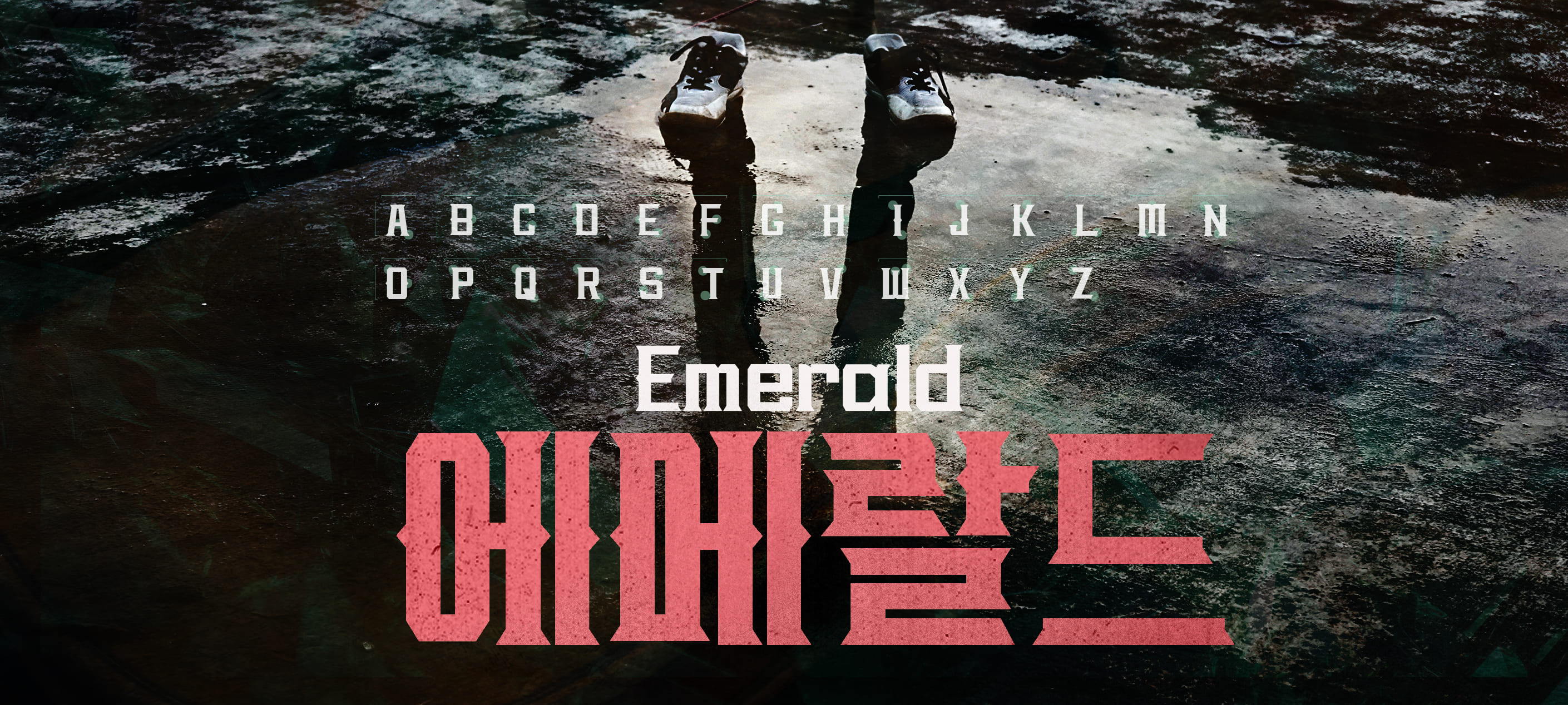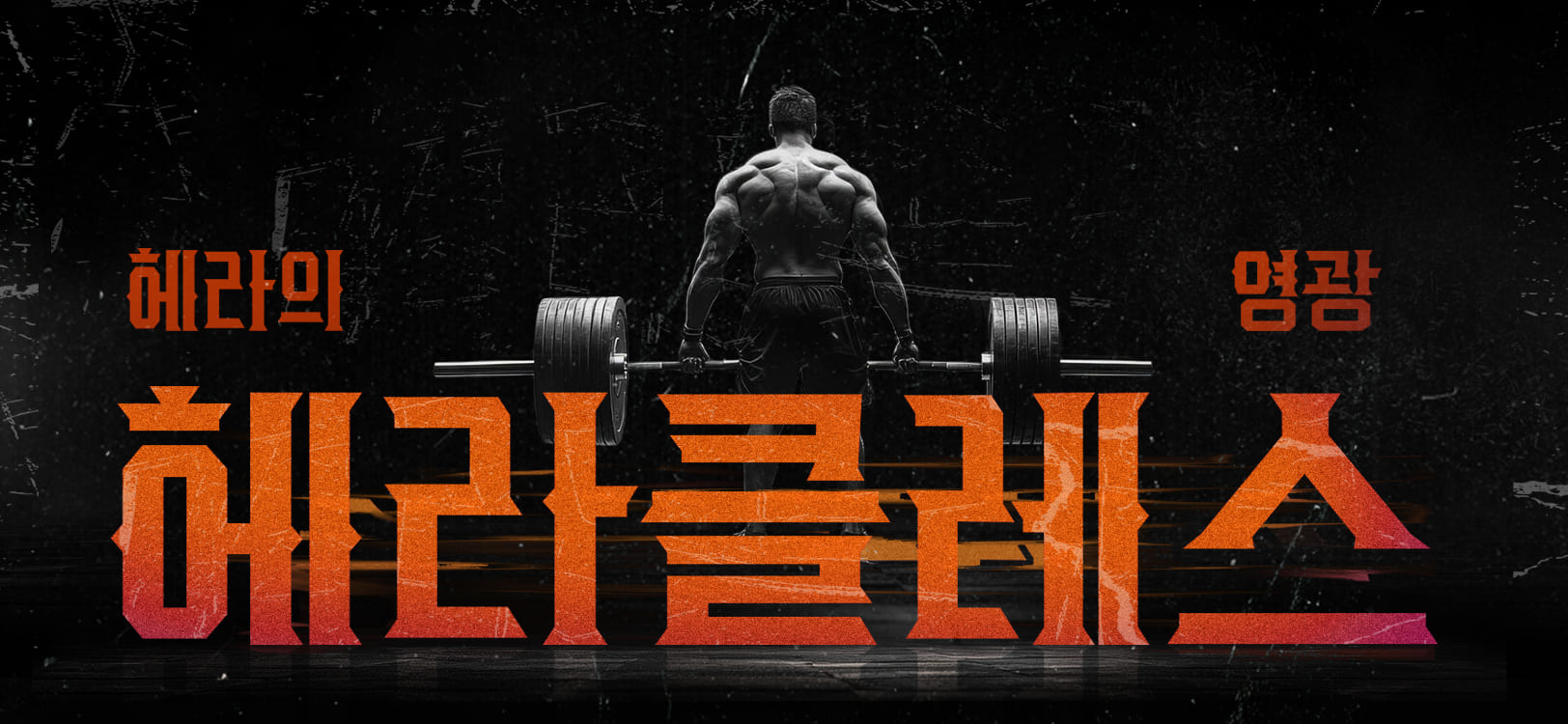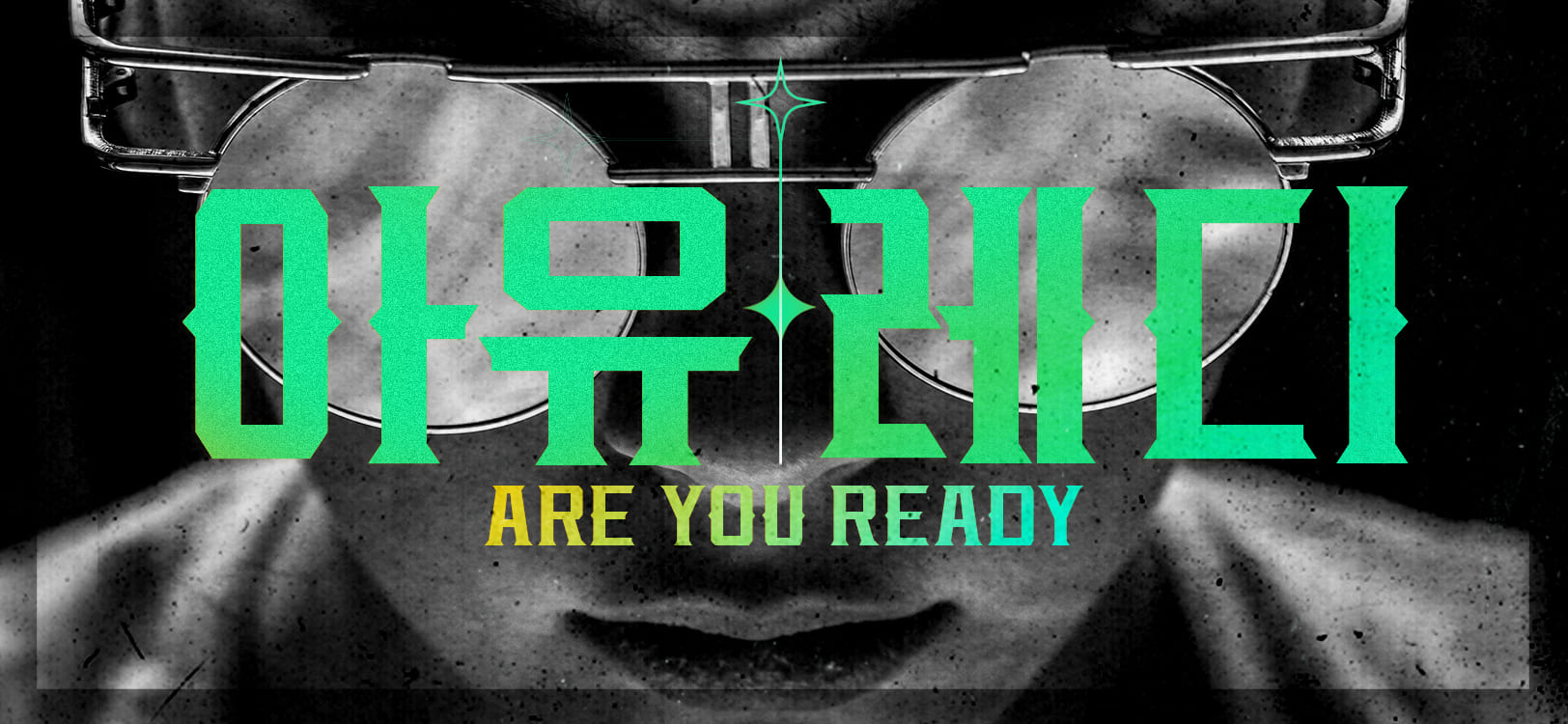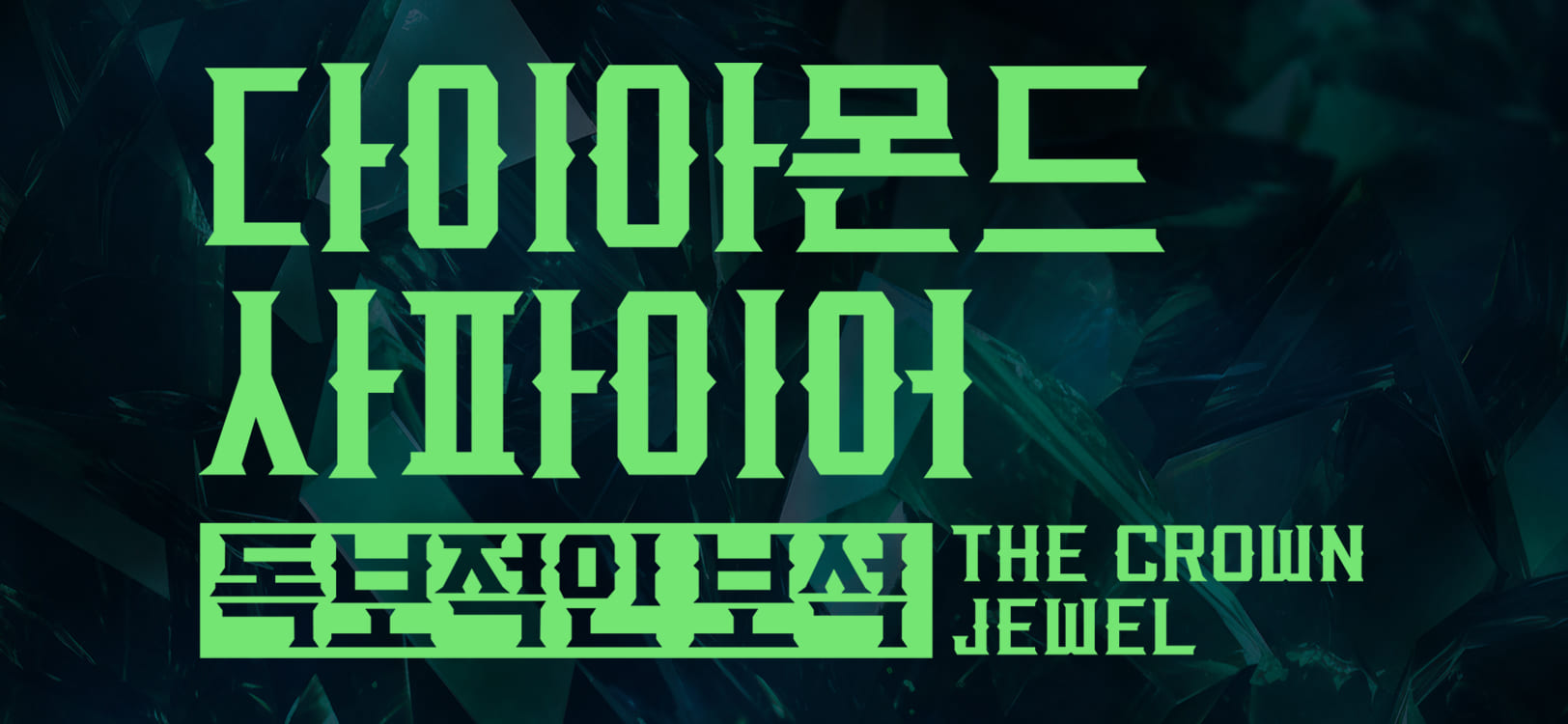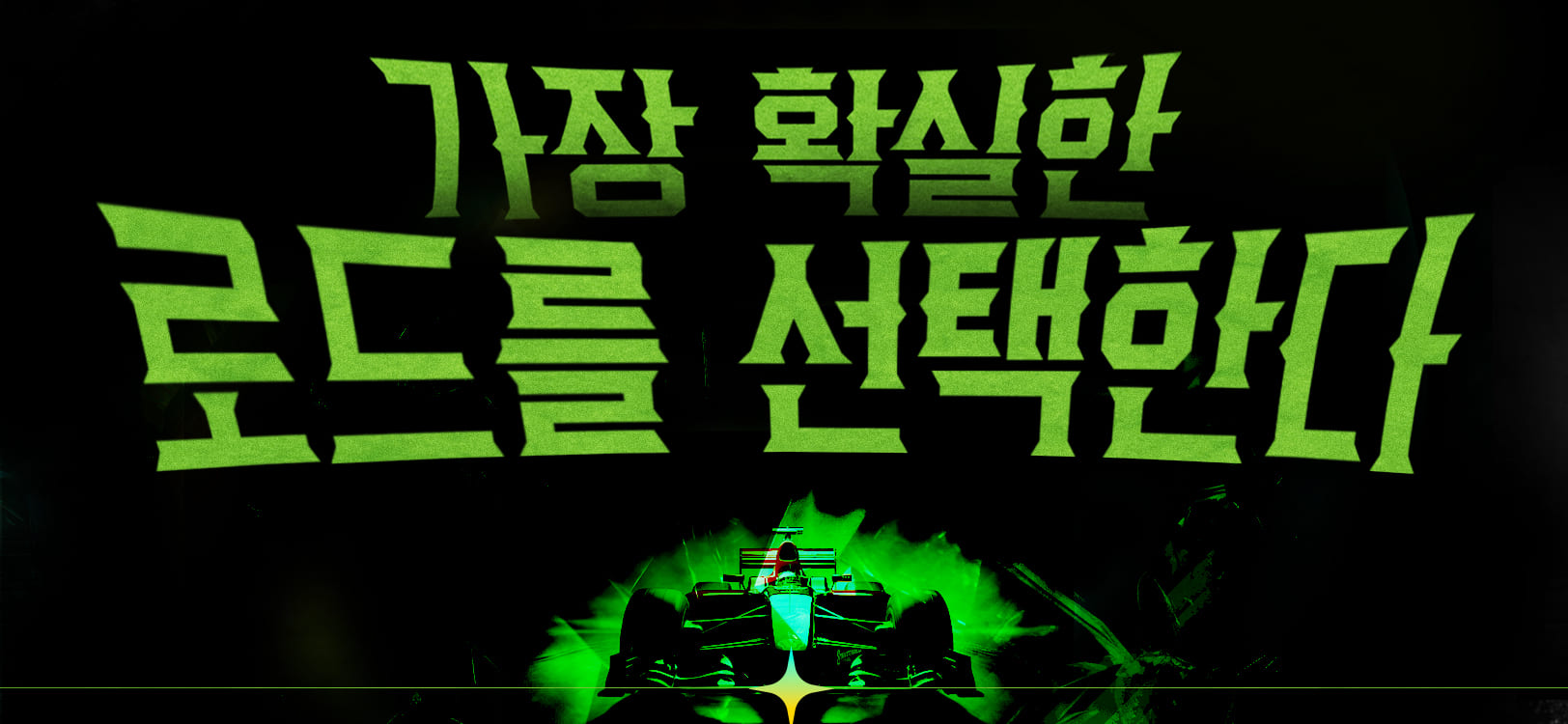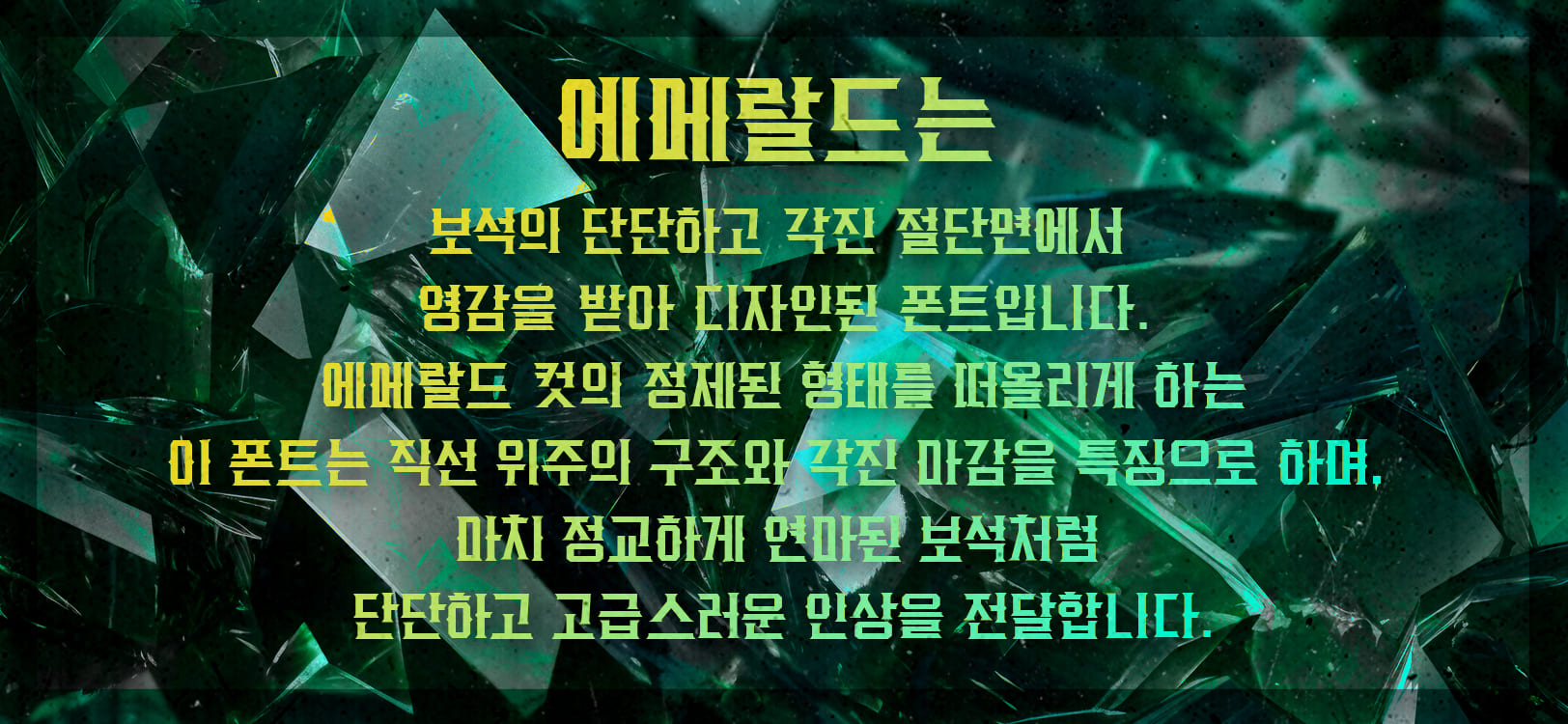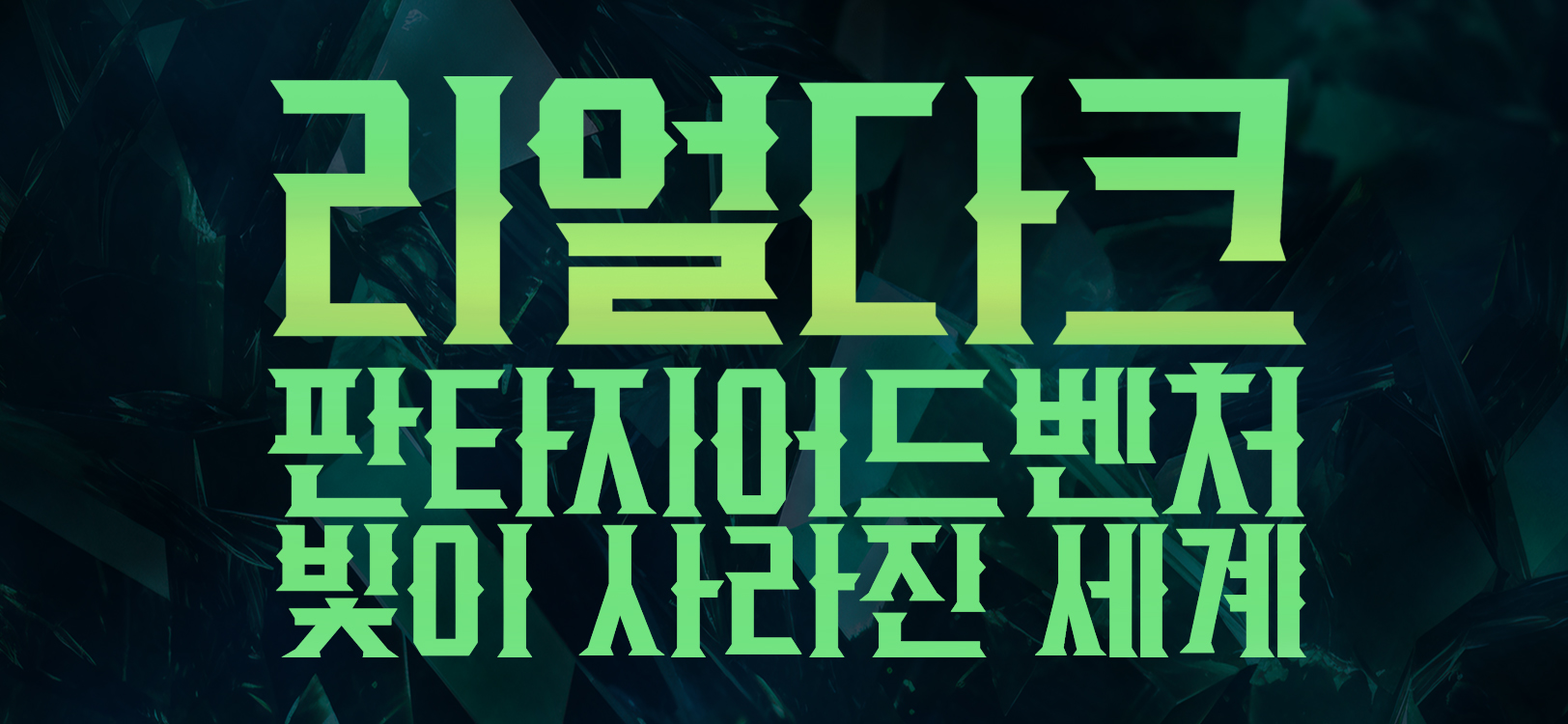
WOOKS Emerald
'Emerald' is a font designed to be inspired by the hard and angular cuttings of jewelry. Reminiscent of the refined form of the emerald cut, the font features a straight line-oriented structure and angled finish, delivering a hard and luxurious impression like finely polished jewelry.Throughout, the geometric structure and the use of restrained curves emphasized visual clarity and refined beauty, and the ends and connections of the strokes are as sharp and sophisticated as the reflective surfaces of jewelry. In addition, we designed a modern and luxurious atmosphere through a certain thickness contrast and relaxed self.
I think the Emerald font is a style suitable for creations that reveal strong personality and presence through exhibition titles and game titles.
- Display